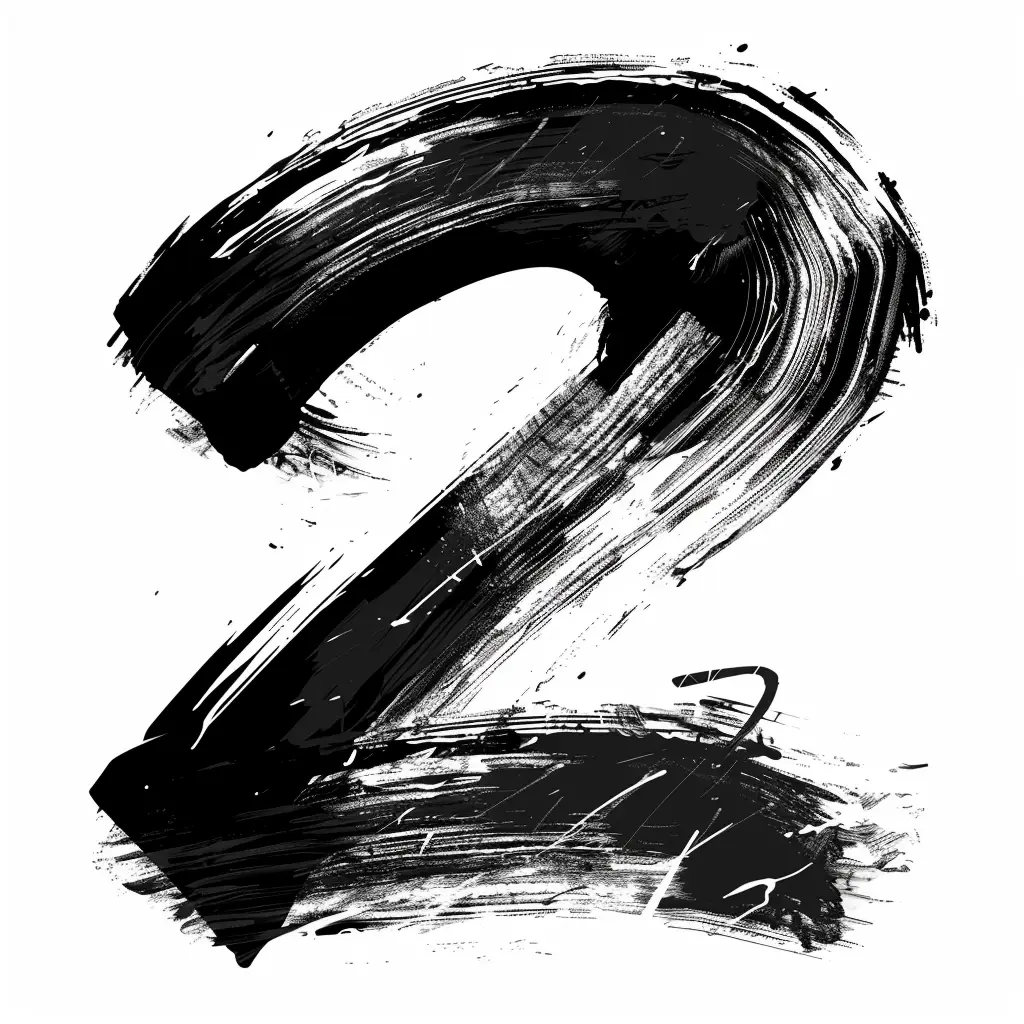
The image features a stylized, hand-painted numeral "2" rendered in bold black brushstrokes against a white background. The design has a rough, textured appearance with visible brush marks, splatters, and dynamic, sweeping lines that give it an artistic, expressive feel. The high contrast between the black ink and white backdrop emphasizes the numeral’s form, while the uneven edges and layered strokes add a sense of movement and spontaneity.